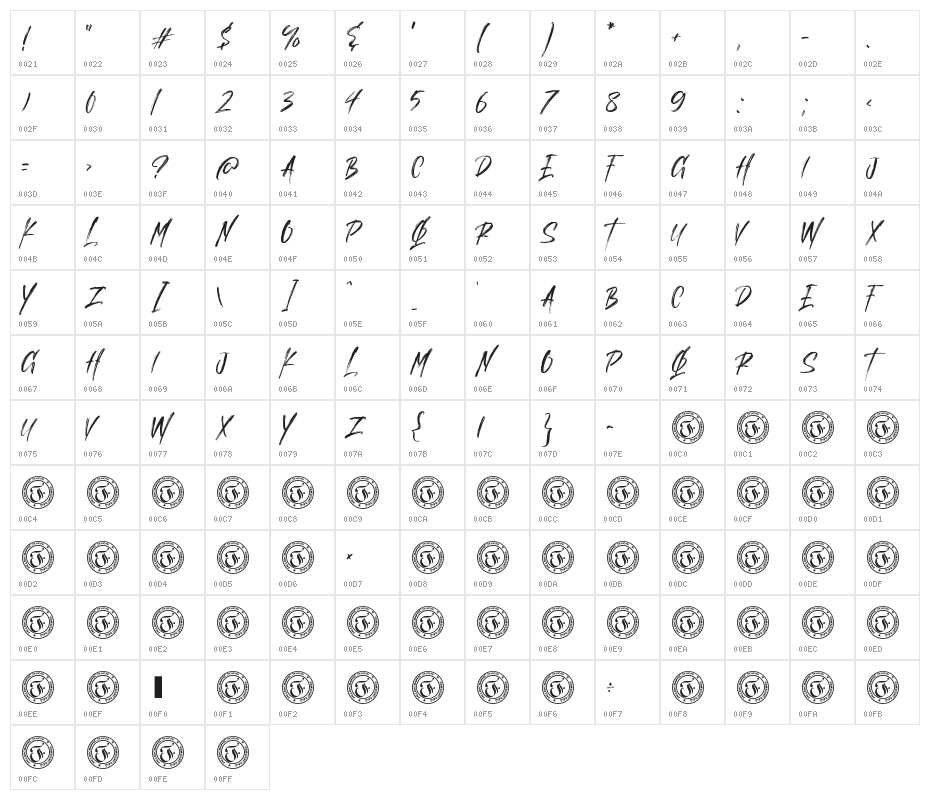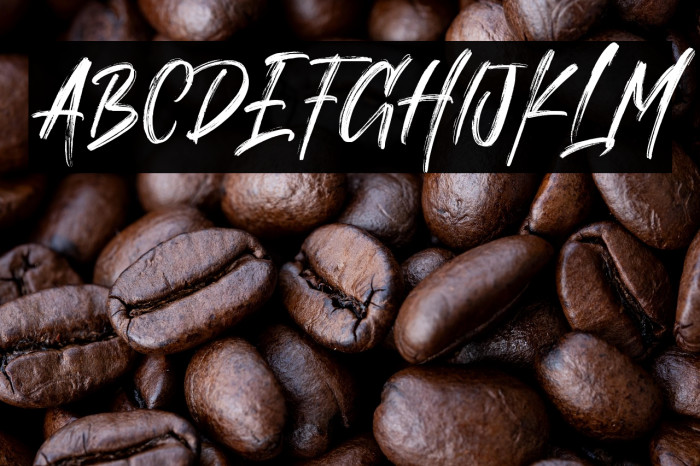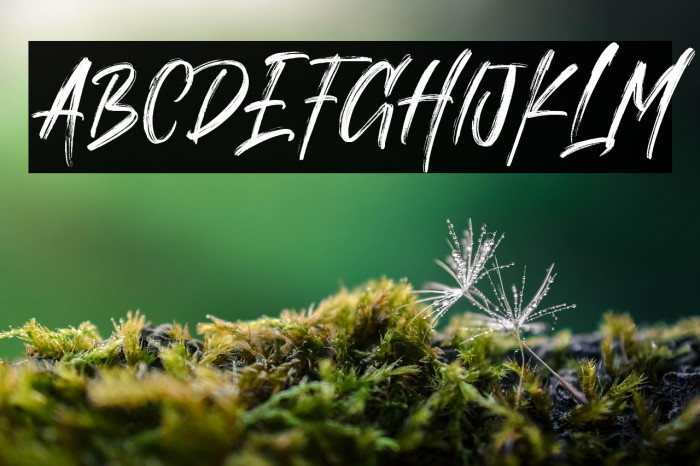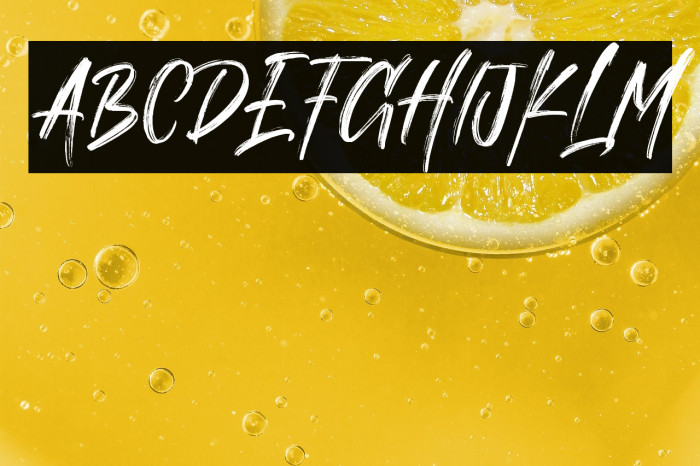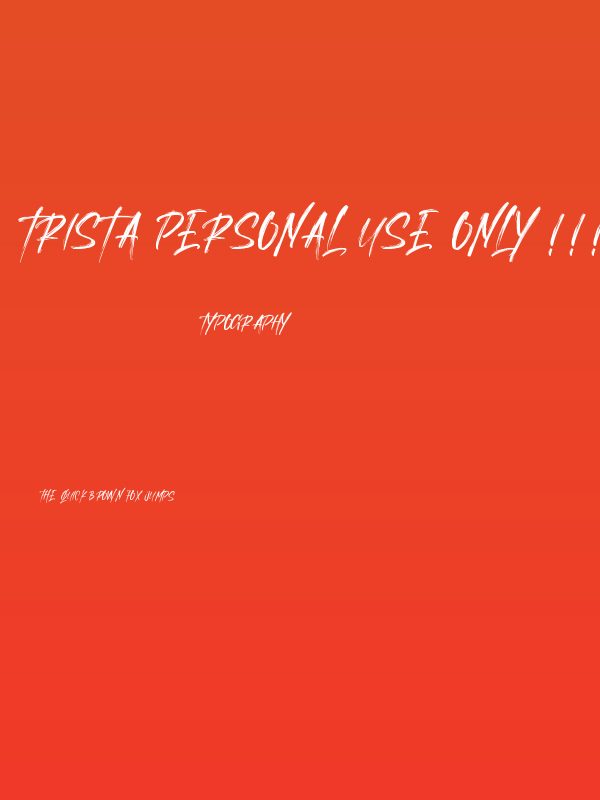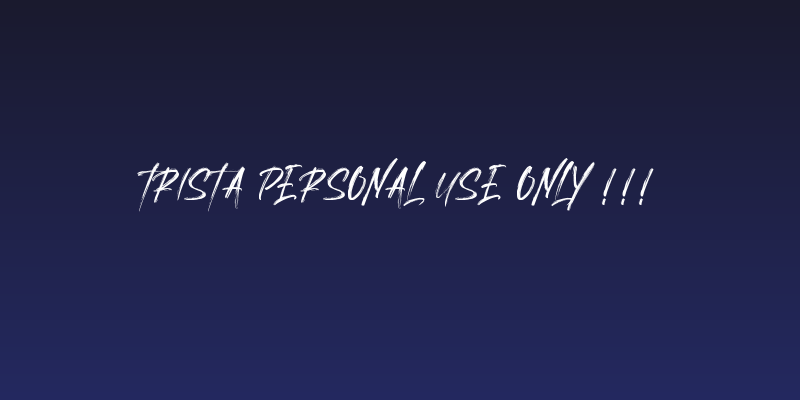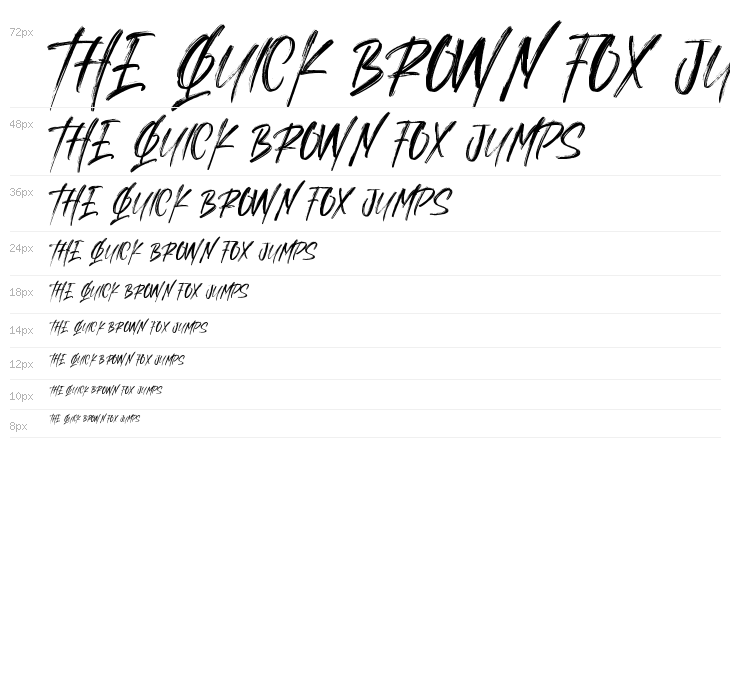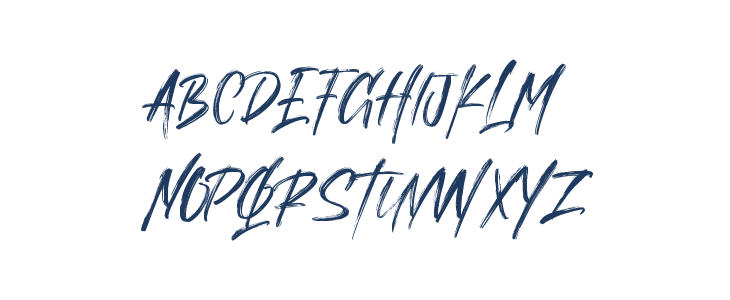
Trista Personal Use Only !!! Font
Trista Personal Use Only !!! Description
This font features a dynamic and expressive handwritten style, characterized by bold, sweeping strokes that convey a sense of energy and movement. The letters are slightly slanted, adding to the casual and informal appearance. The strokes vary in thickness, creating a high contrast that enhances the visual interest. The characters are closely spaced, contributing to a compact and cohesive look. This font is ideal for projects that require a personal touch or a creative flair, such as invitations, posters, or branding materials.
| Proposed Projects | Ideal for invitations, posters, branding, and creative projects requiring a personal touch. |